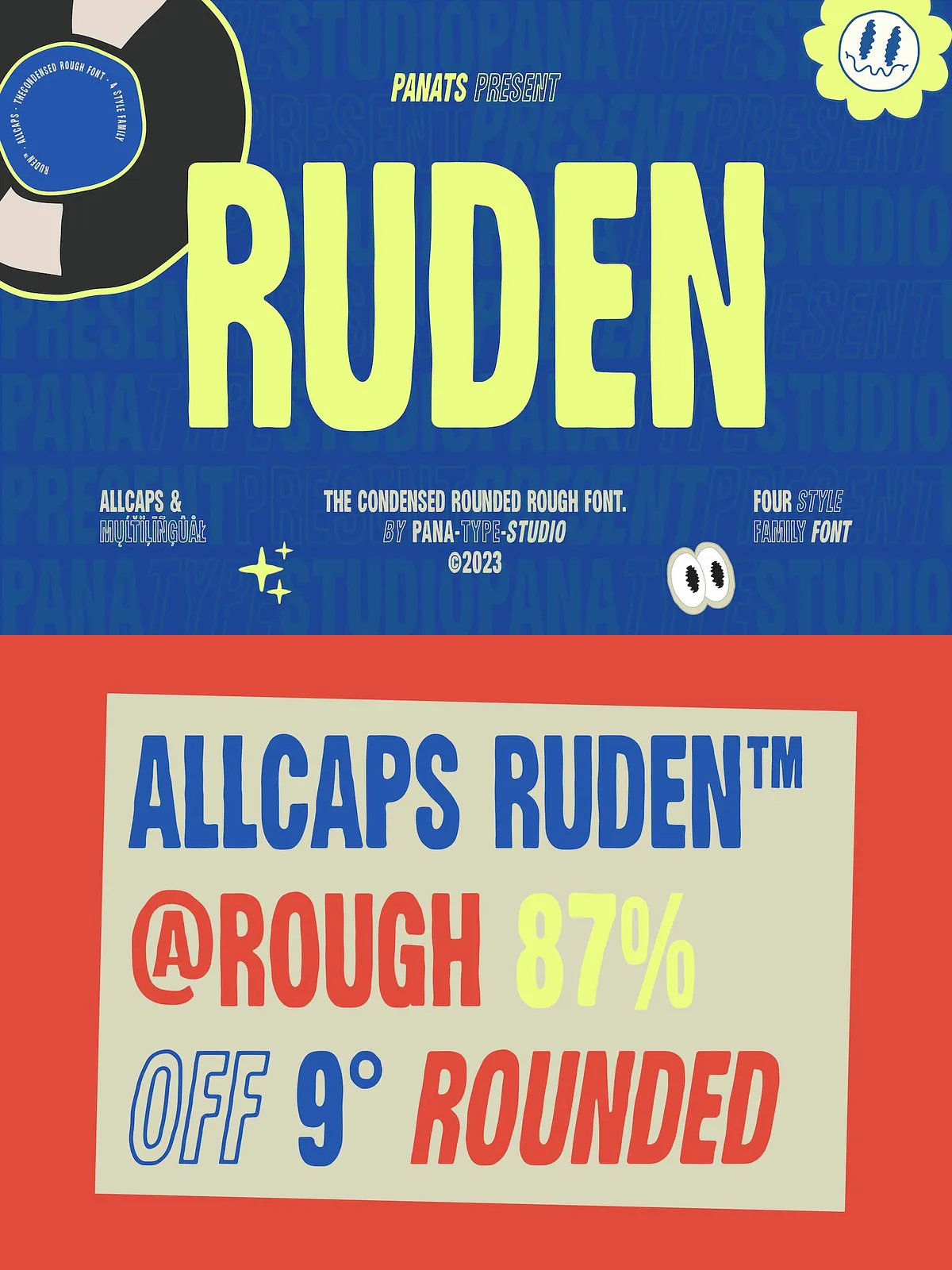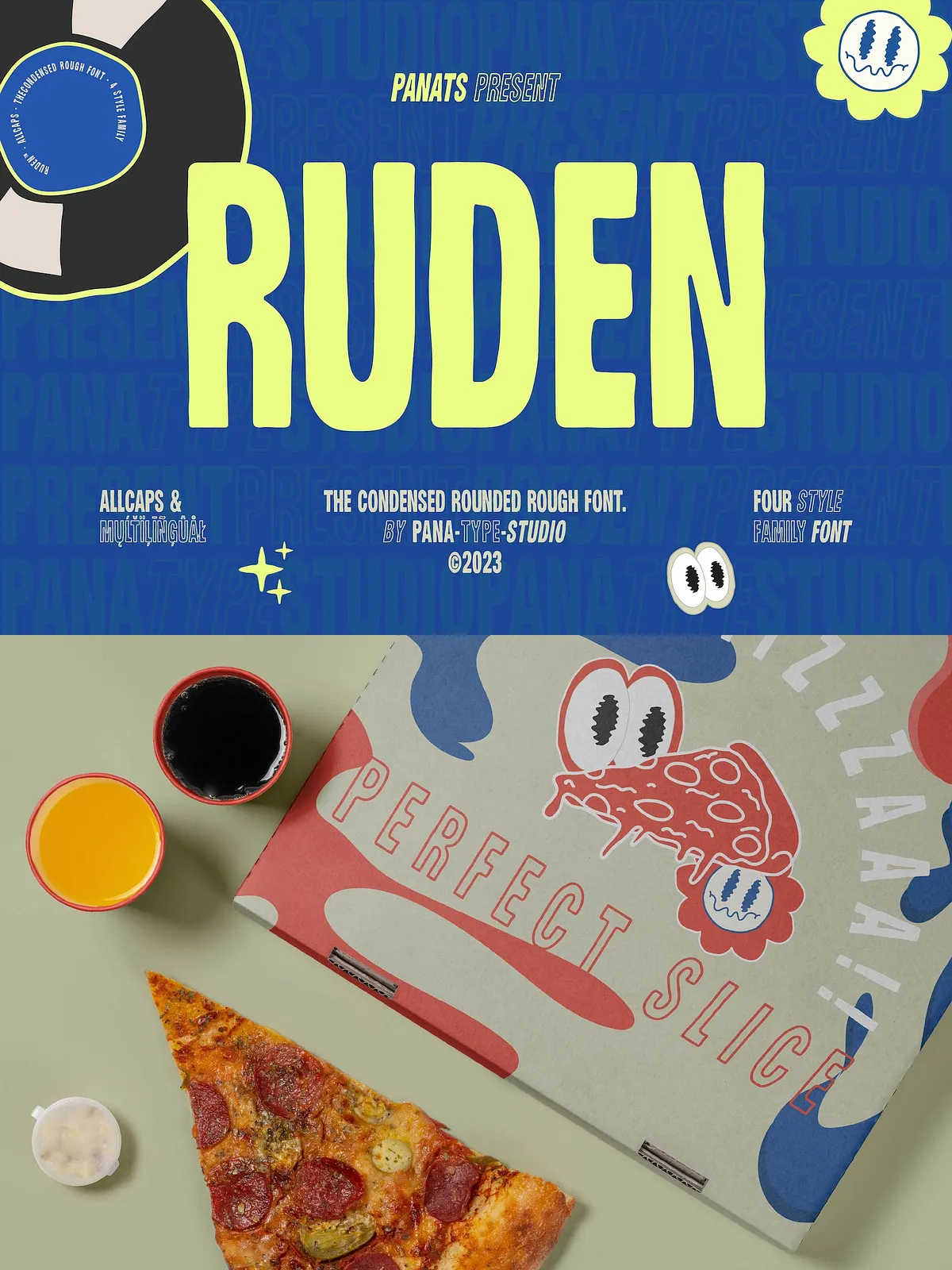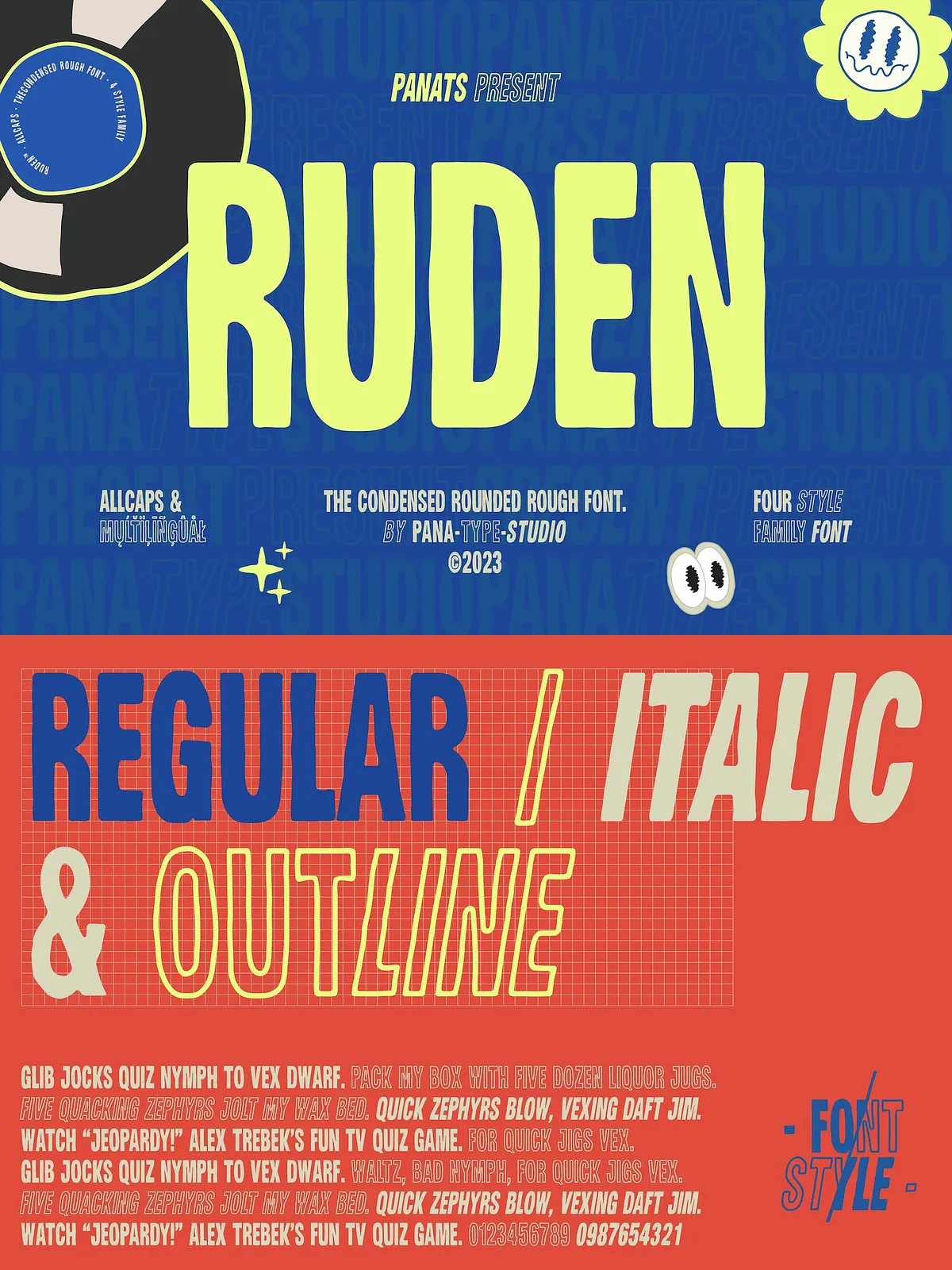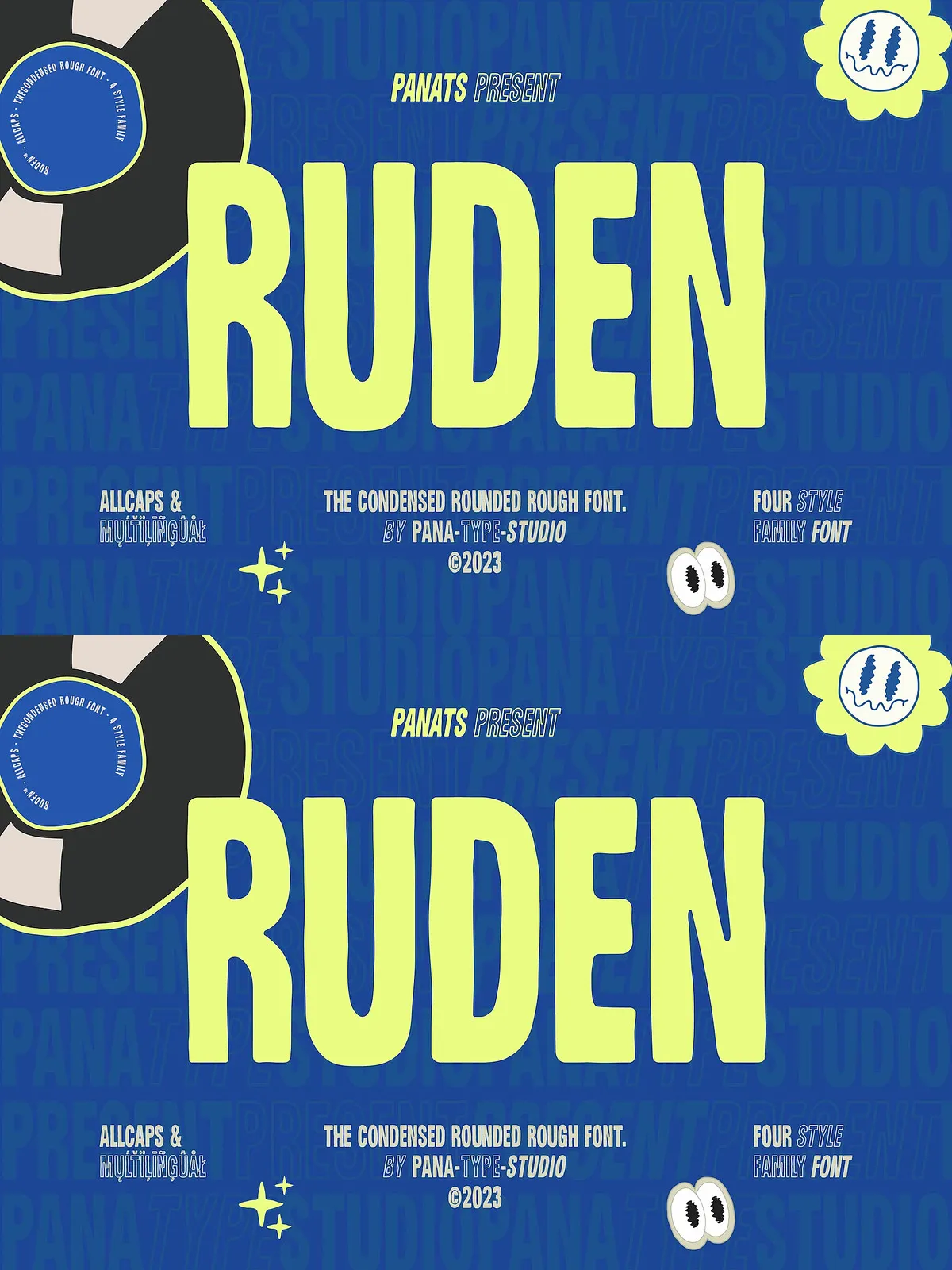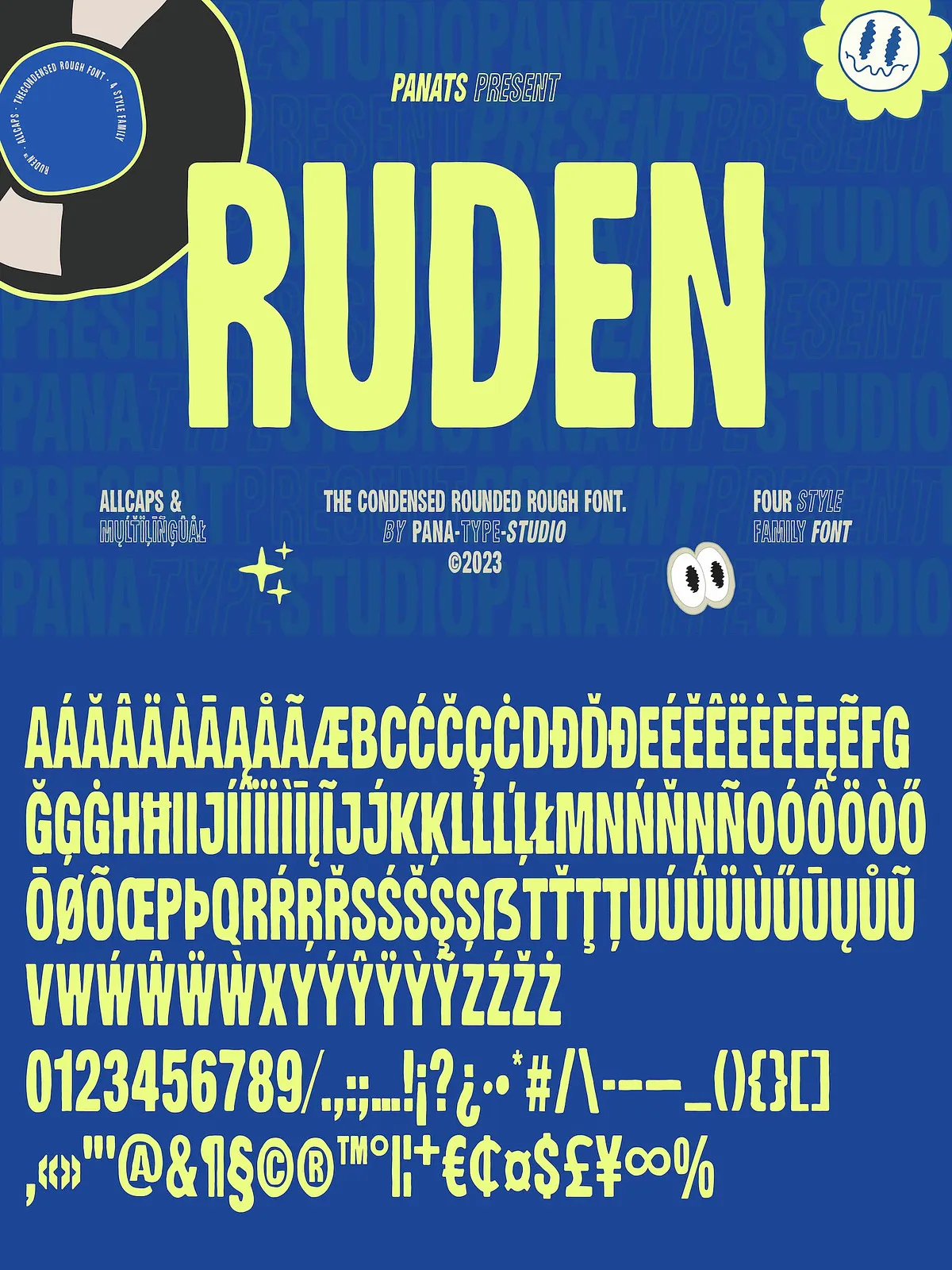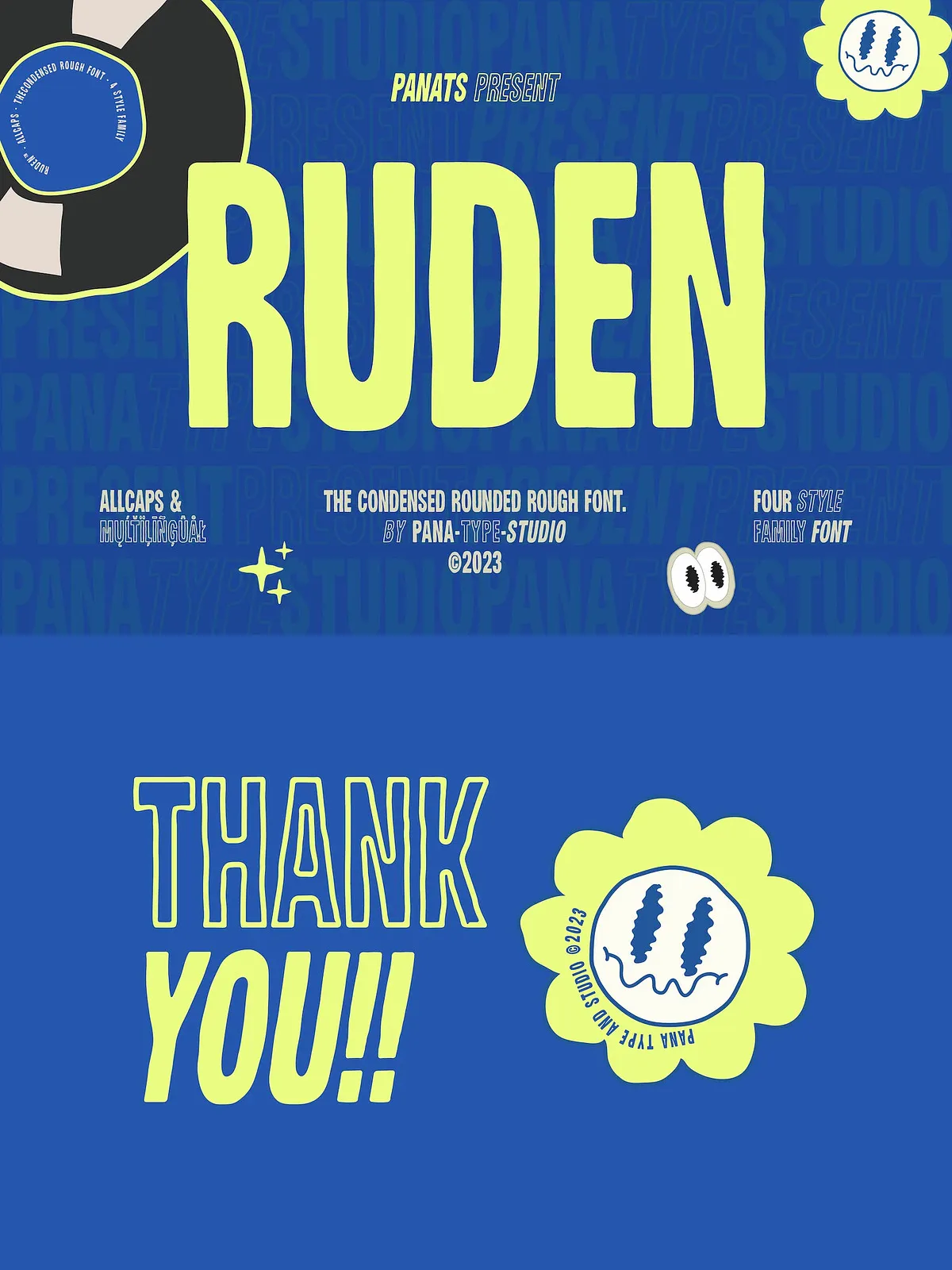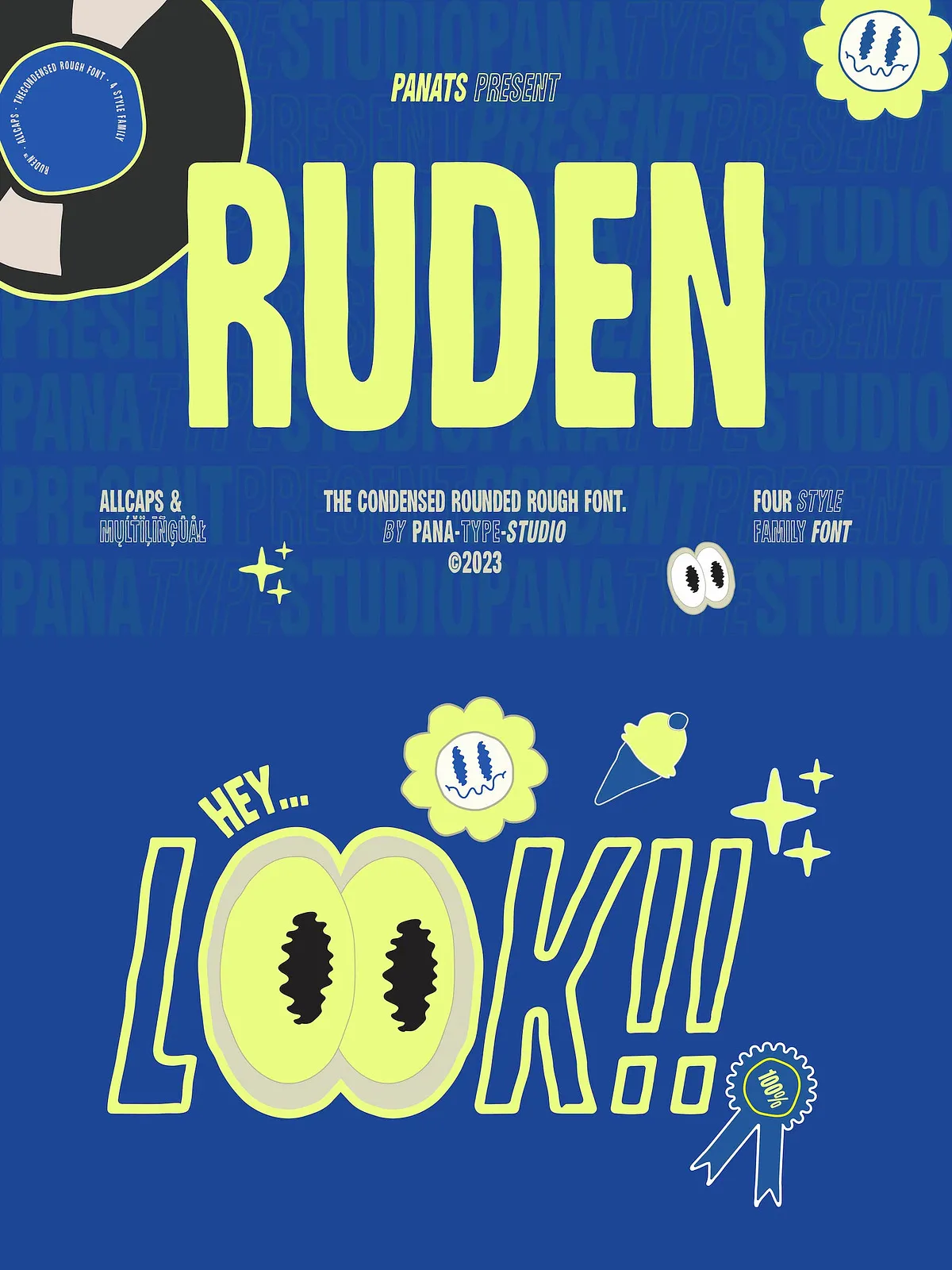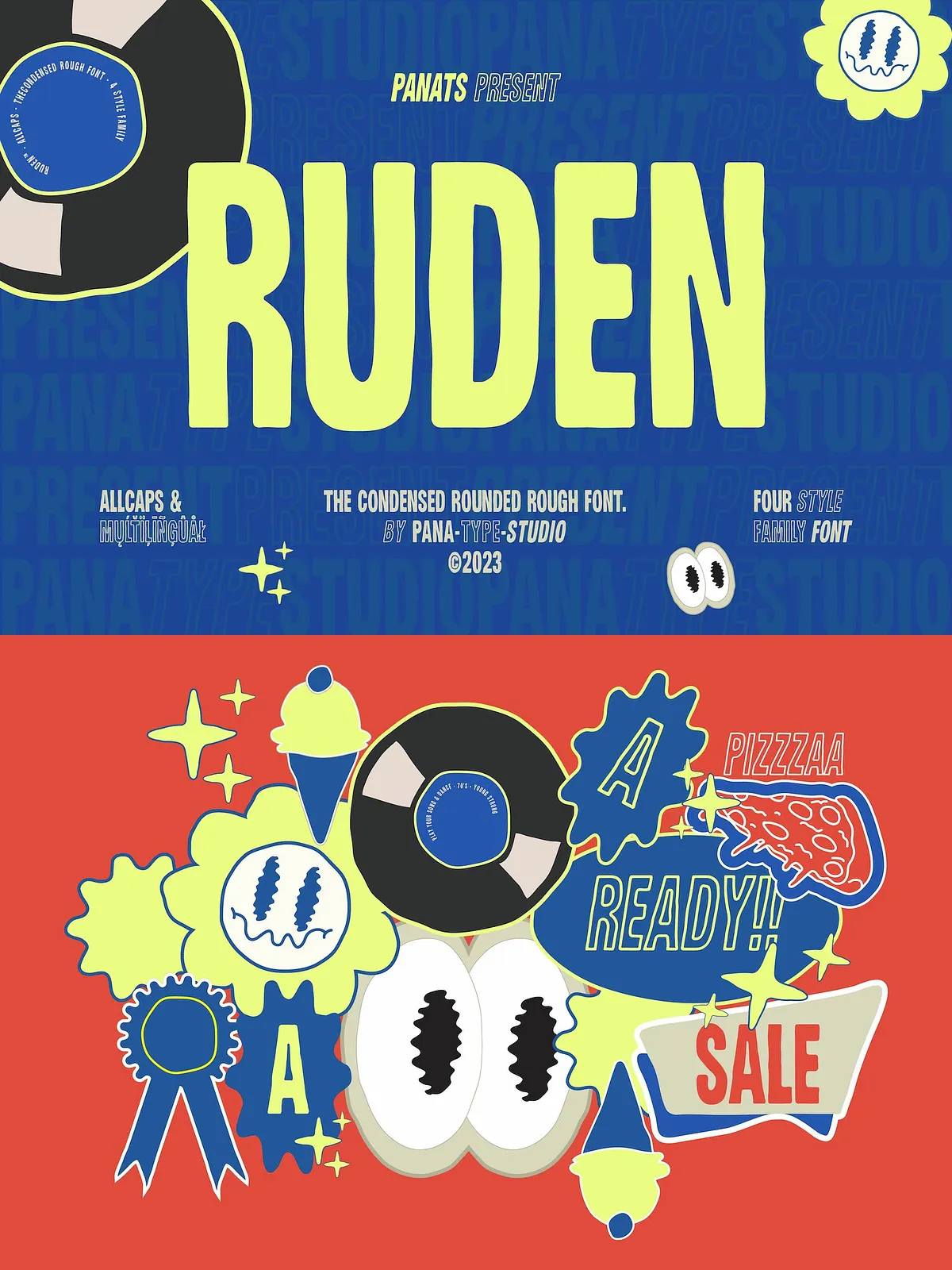
RUDEN is a condensed rounded rough typeface, with organic hand-written style, come with 4 family style ( Regular, Italic, Outline, Outline Italic ) which is perfect for your designs that want a rough style, modern vintage, elegant, soft, and carefully crafted for all graphic design needs.